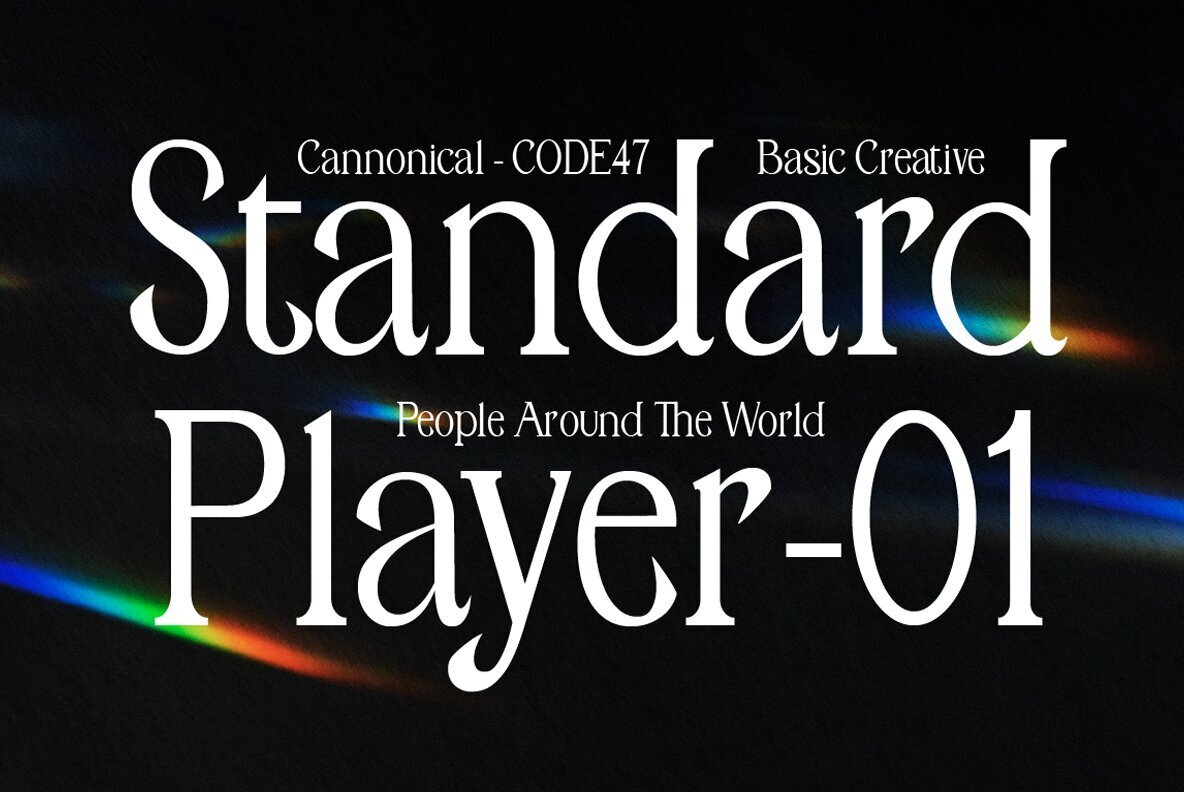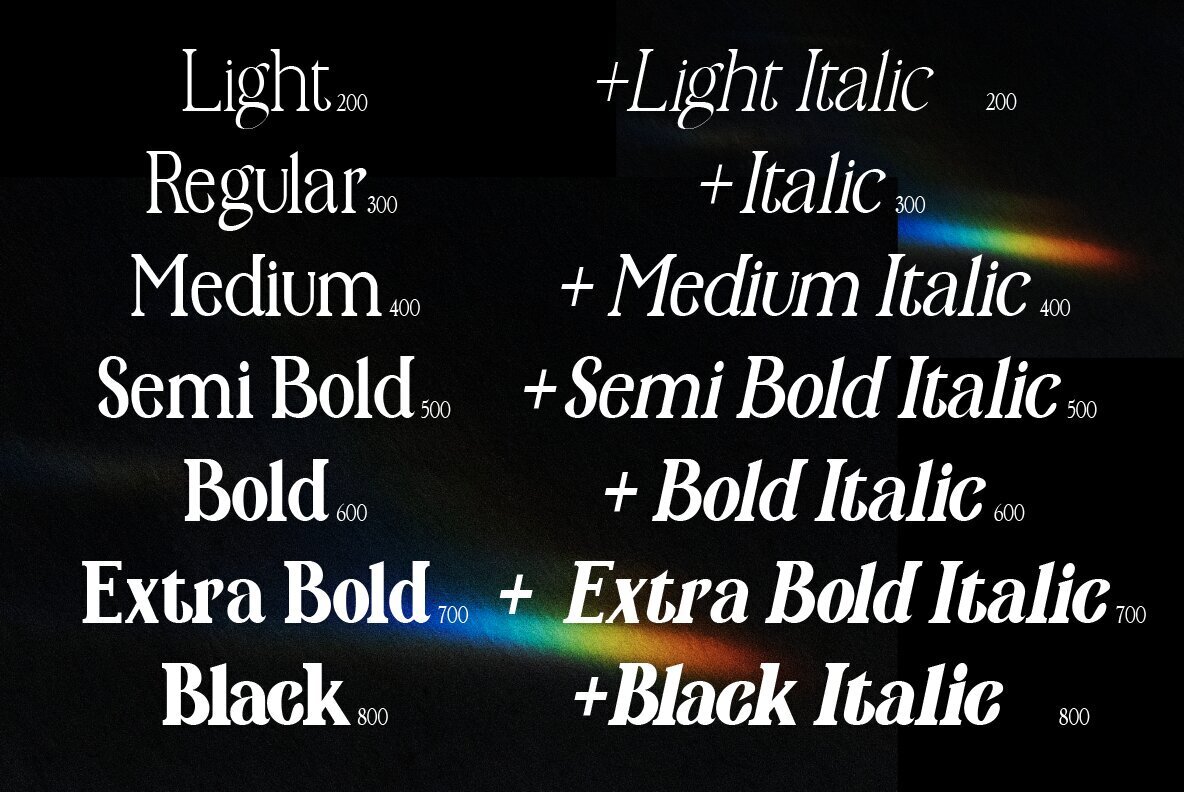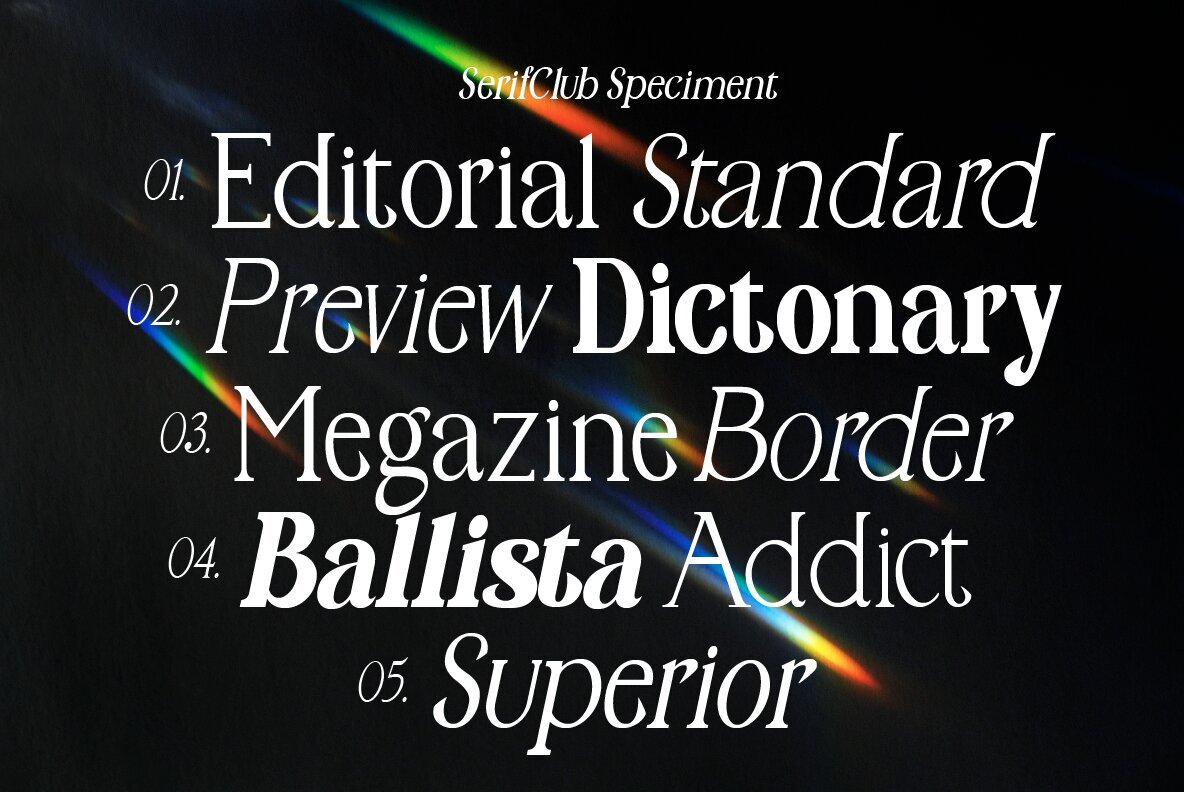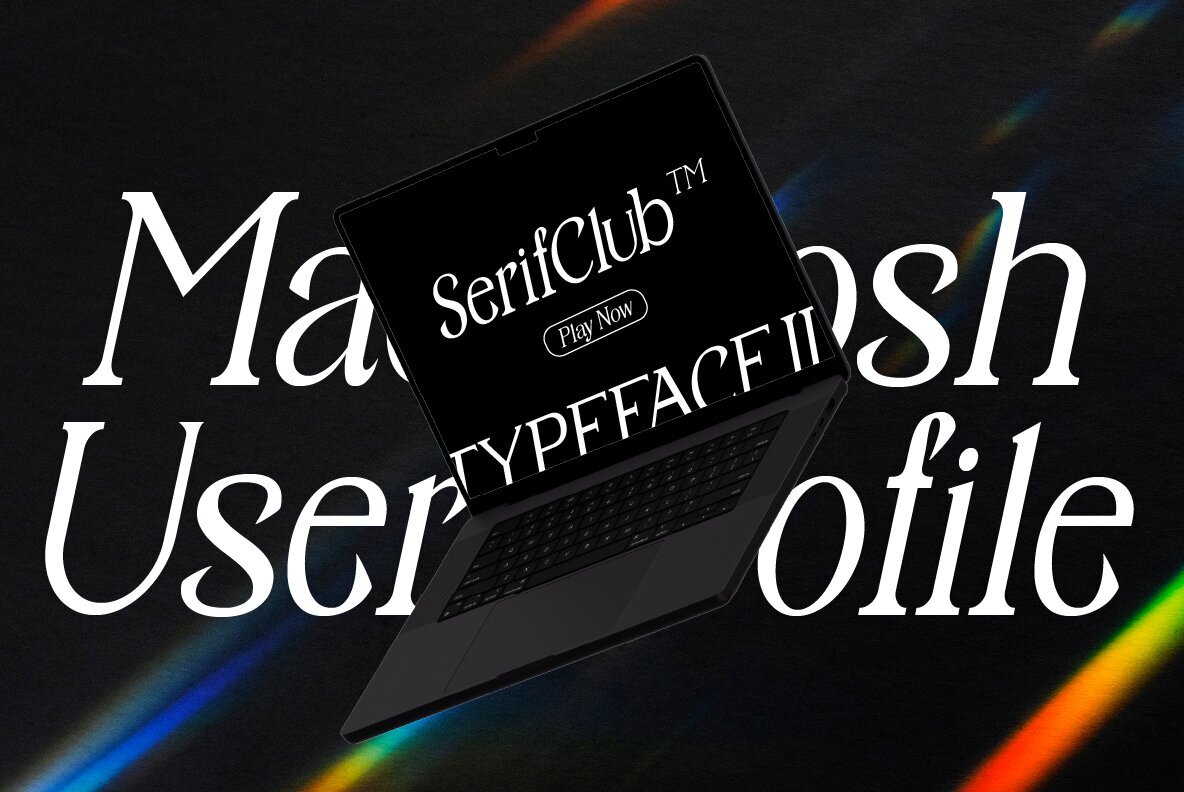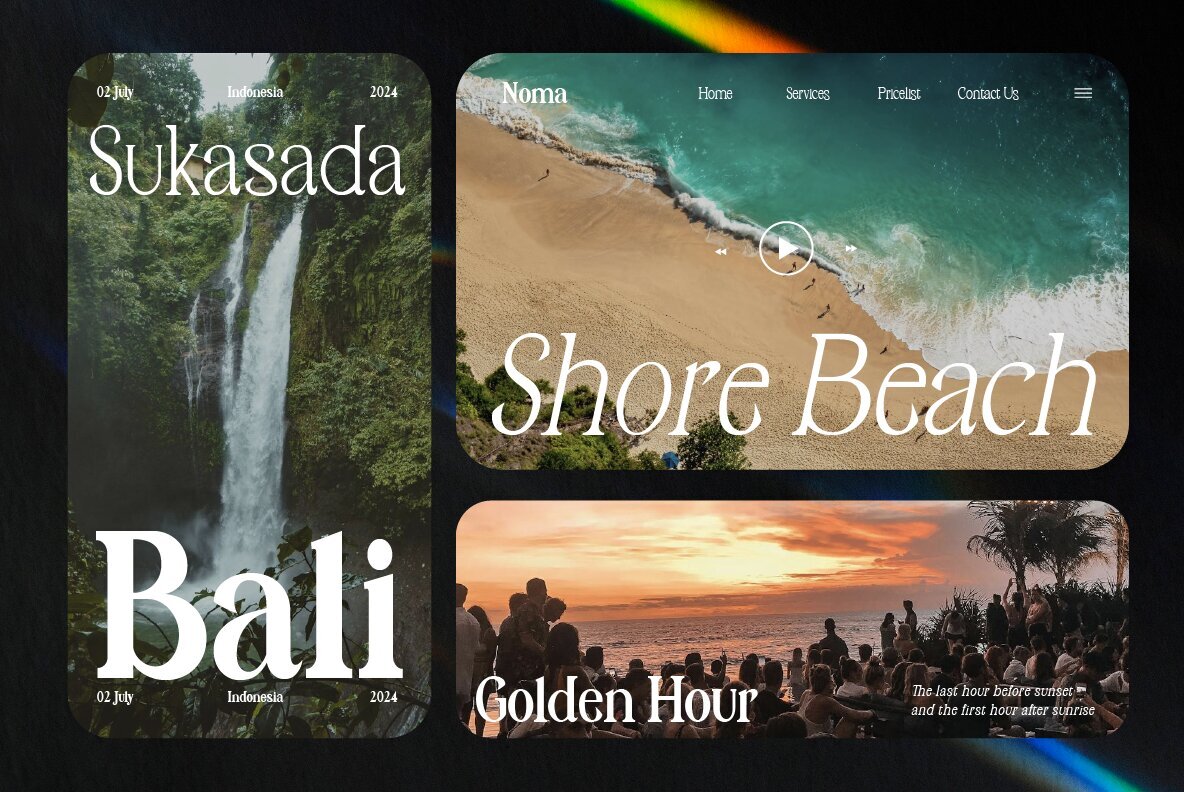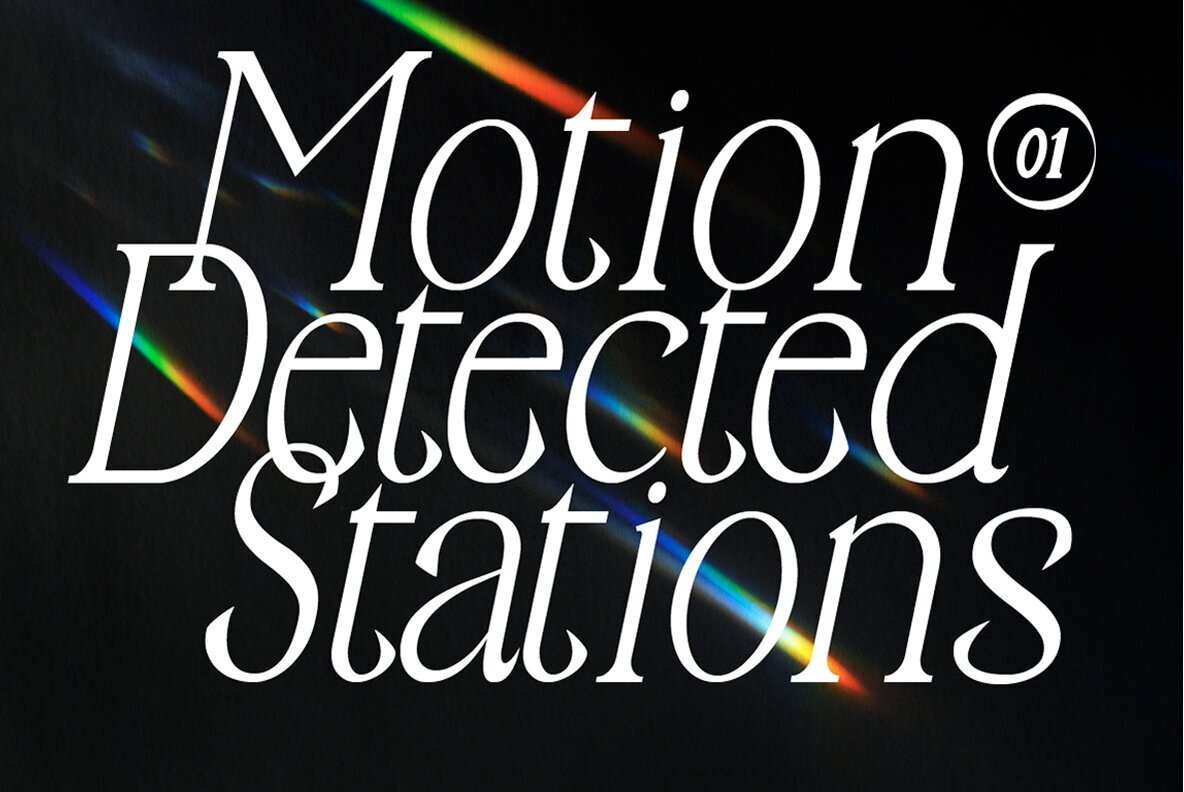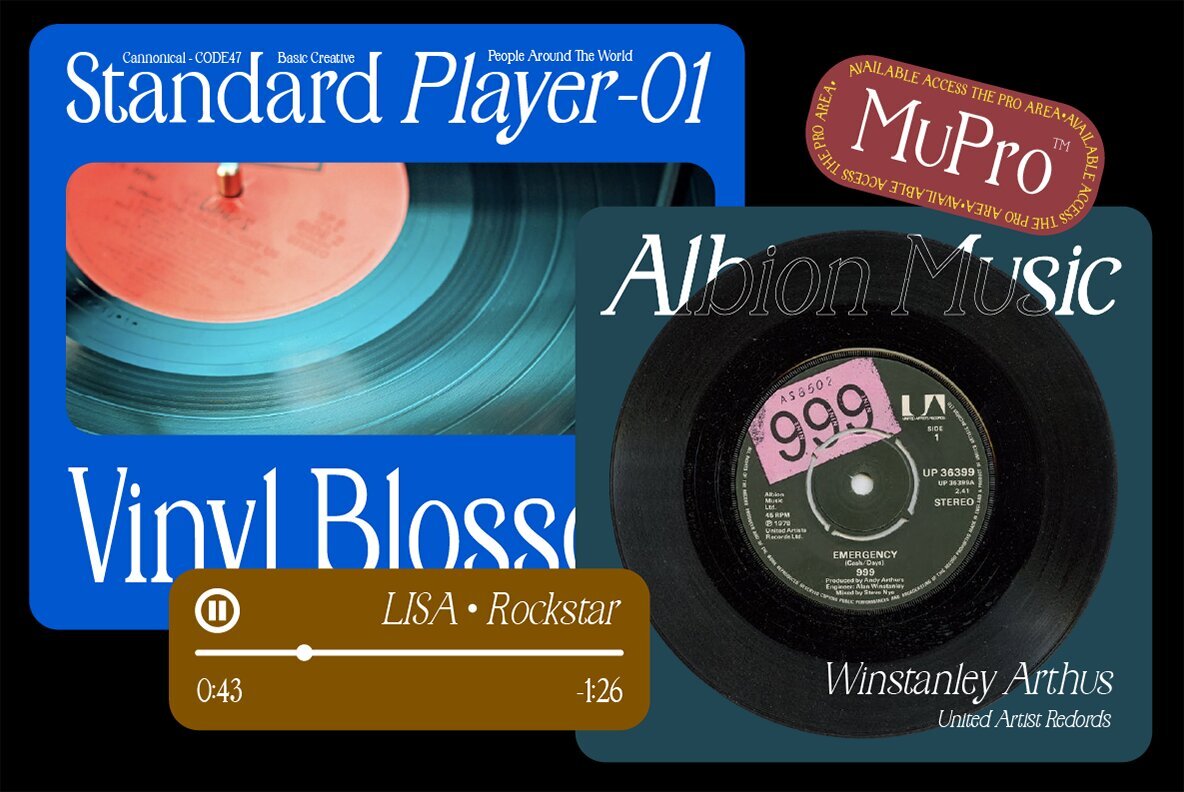
Serif Club Font
ID SerifClub a modern serif font that effortlessly combines contemporary design with timeless elegance. This font stands out with its refined and sophisticated appearance, making it an ideal choice for a wide range of design projects.
ID SerifClub with 7 different styles ranging from Light to Black, plus matching italics for each weight, ID SerifClub offers the flexibility to create diverse and dynamic layouts.